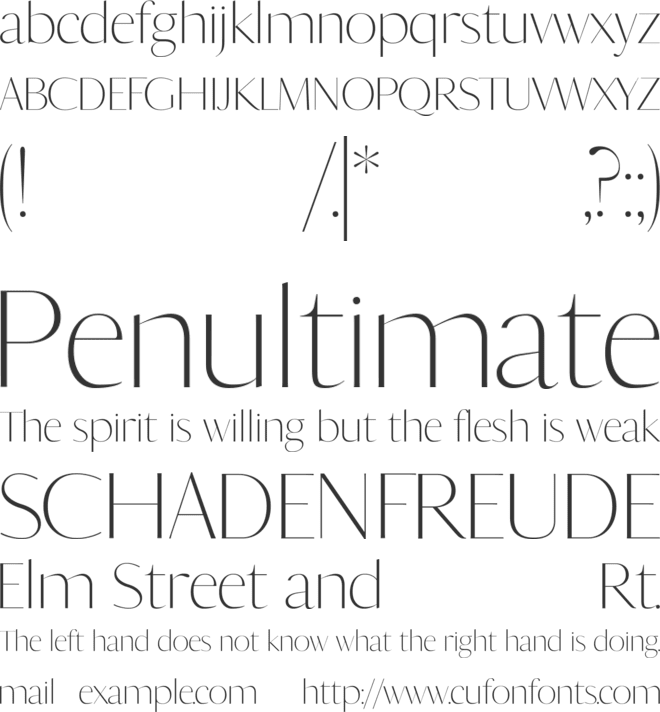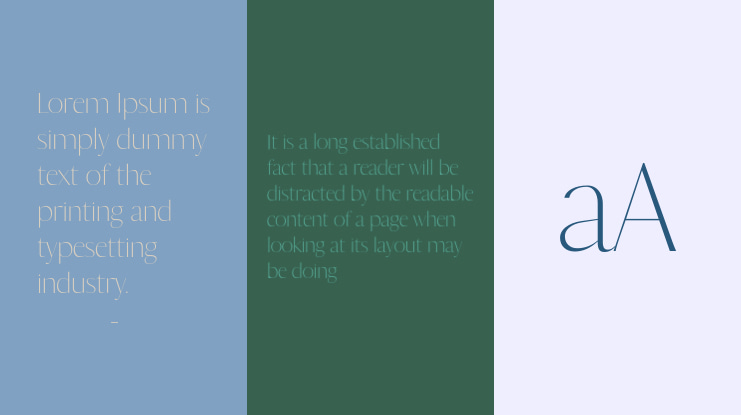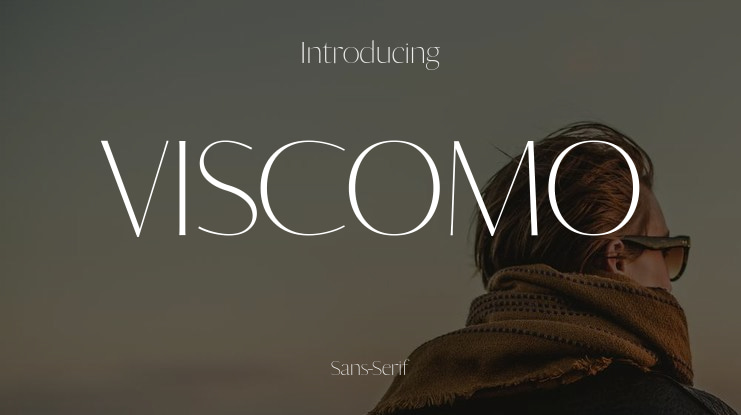
VISCOMO Font Family
🎨 Font Name: Viscomo by Minimalist Art Studio
🎨 Font Description: Viscomo is a delicate sans serif with soft geometry and multilingual finesse, ideal for branding, editorial, and lifestyle design.
βœ” Complete Latin set + multilingual diacritics
βœ” Alternates, stylistic sets & ligatures
βœ” Numbers, small caps, and extended punctuation
βœ” Bonus italics and family styles